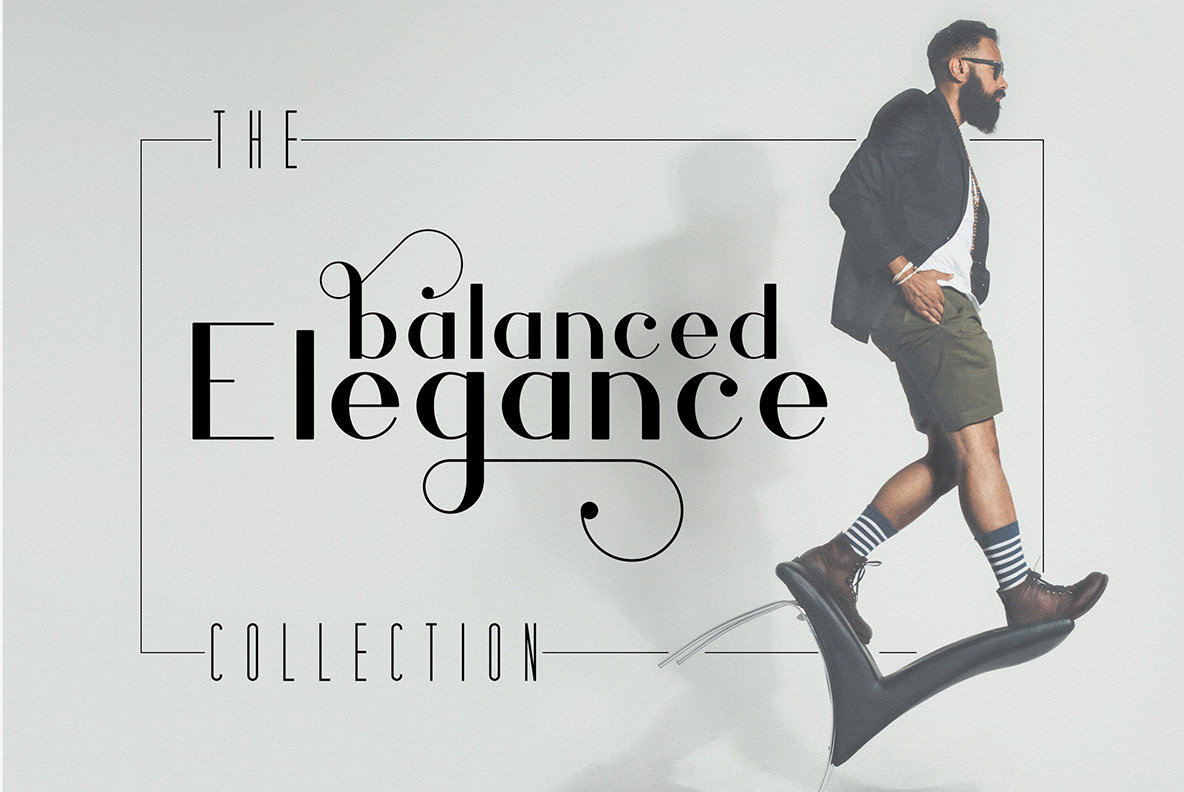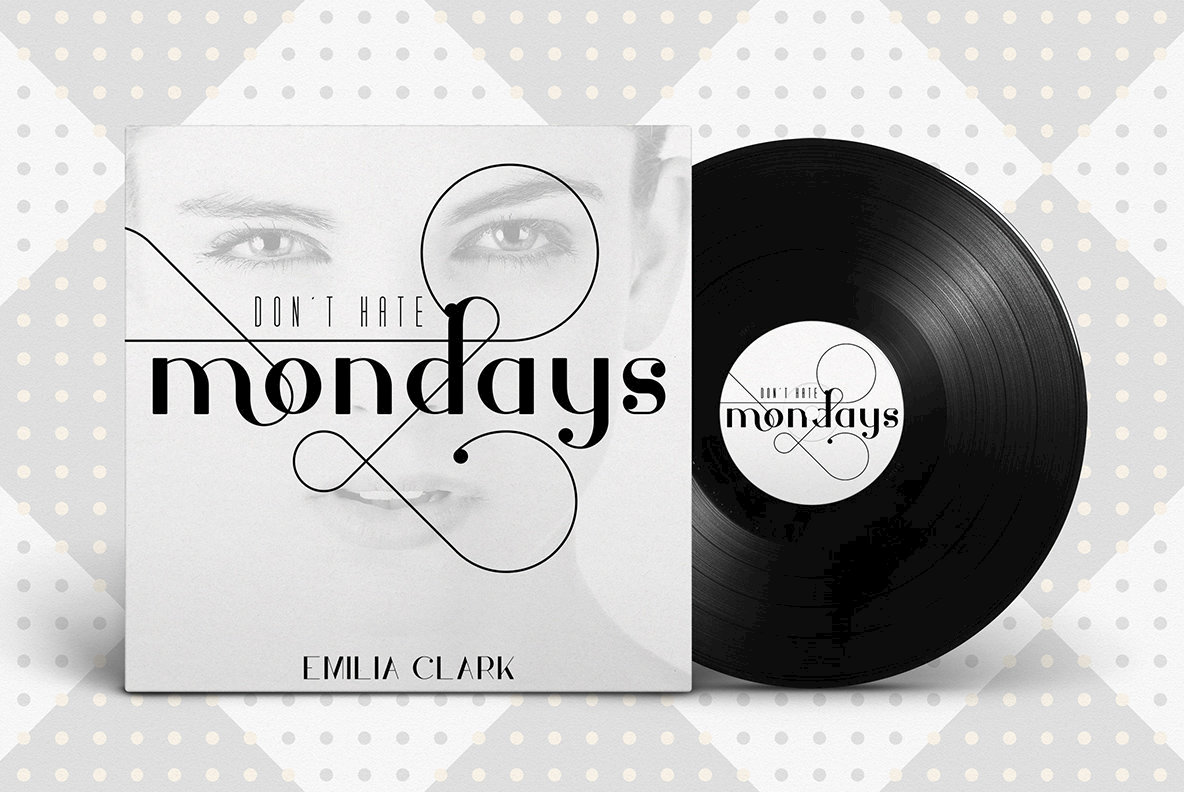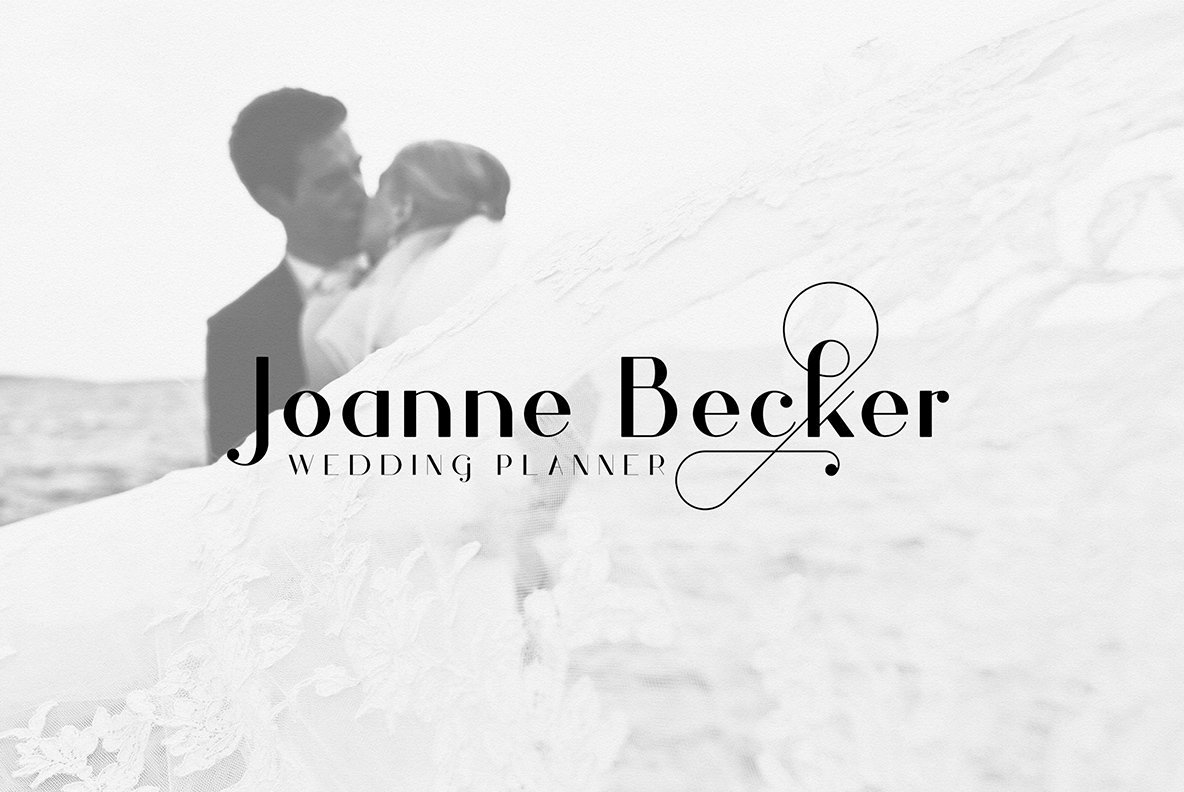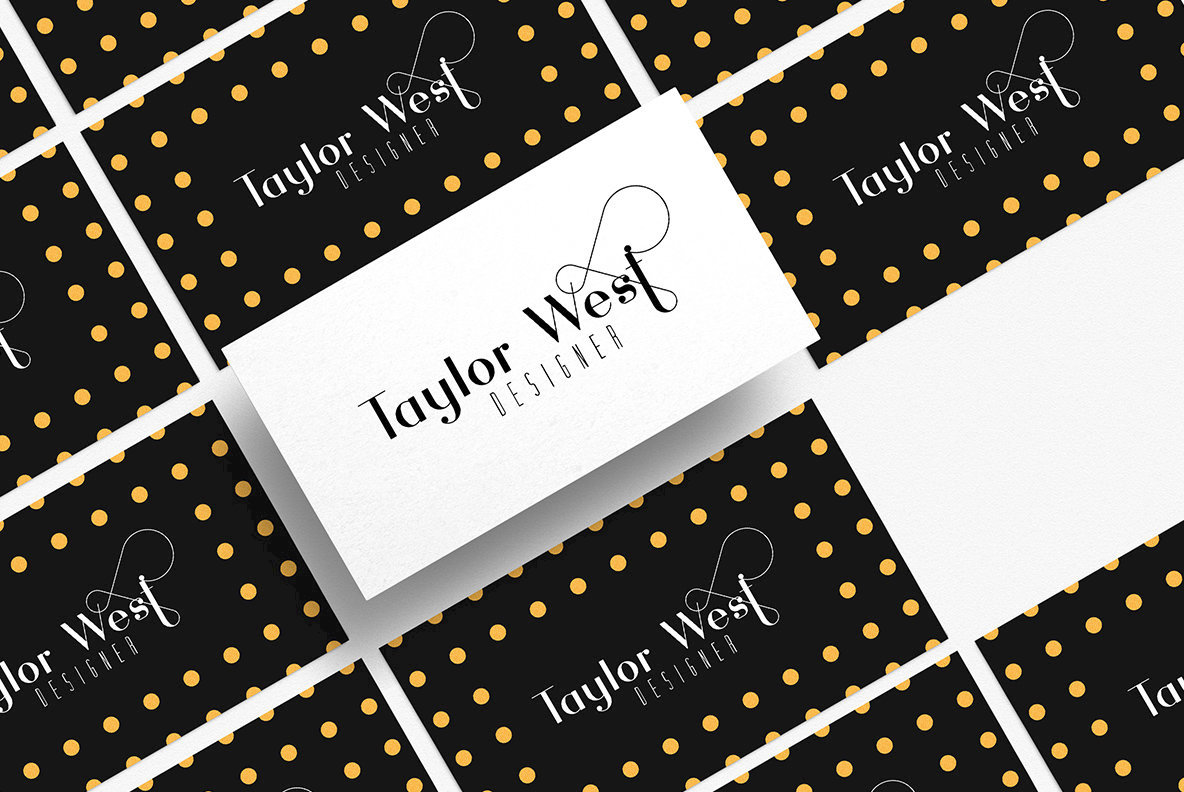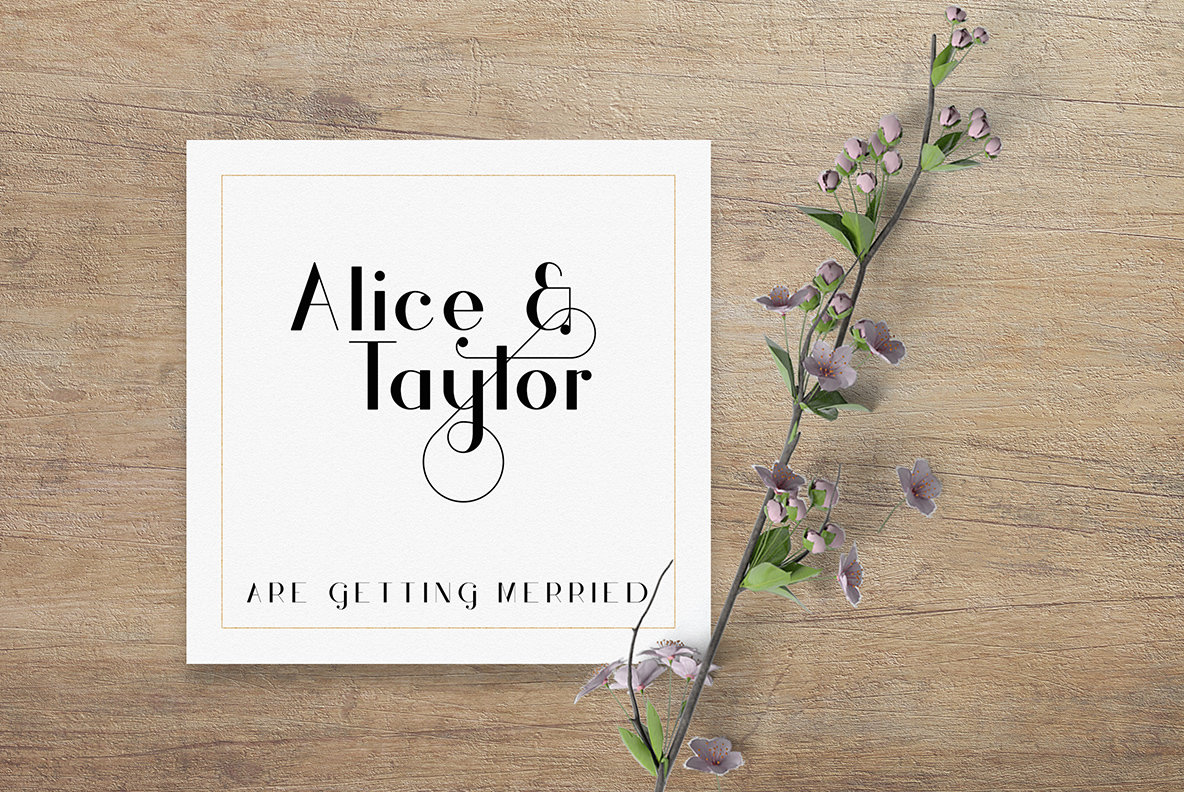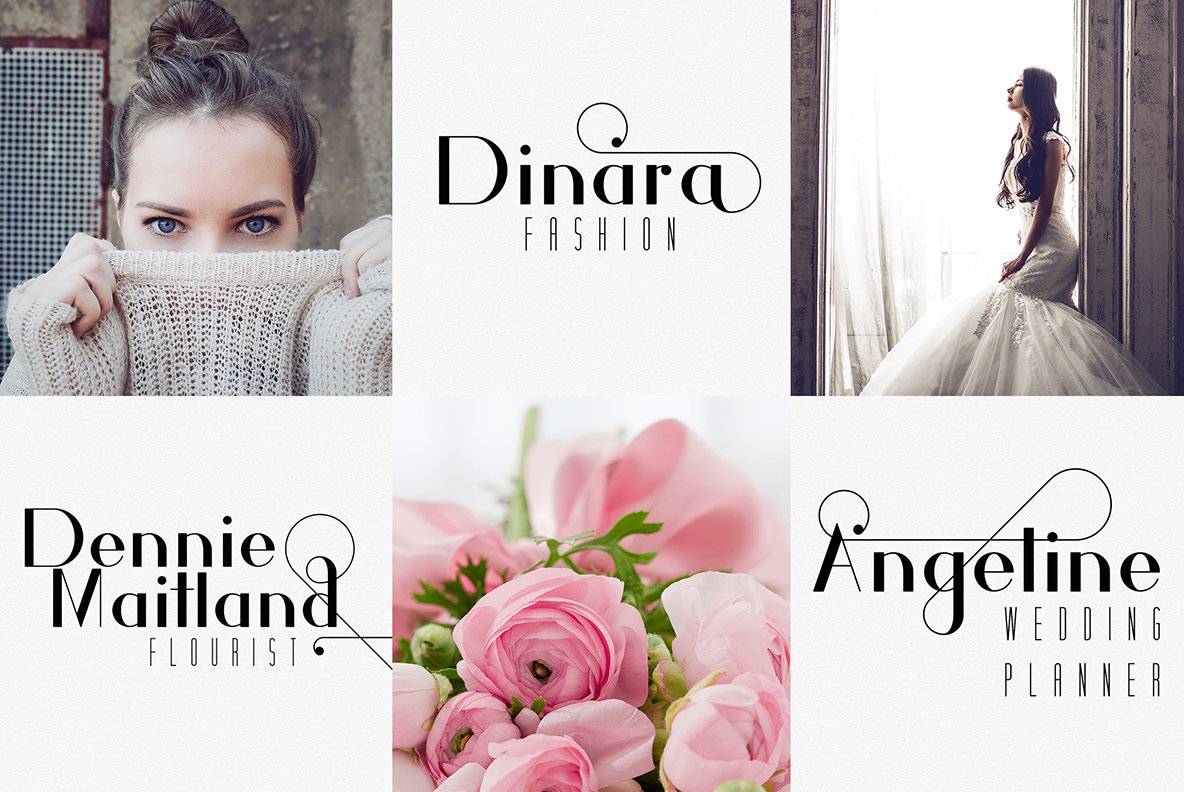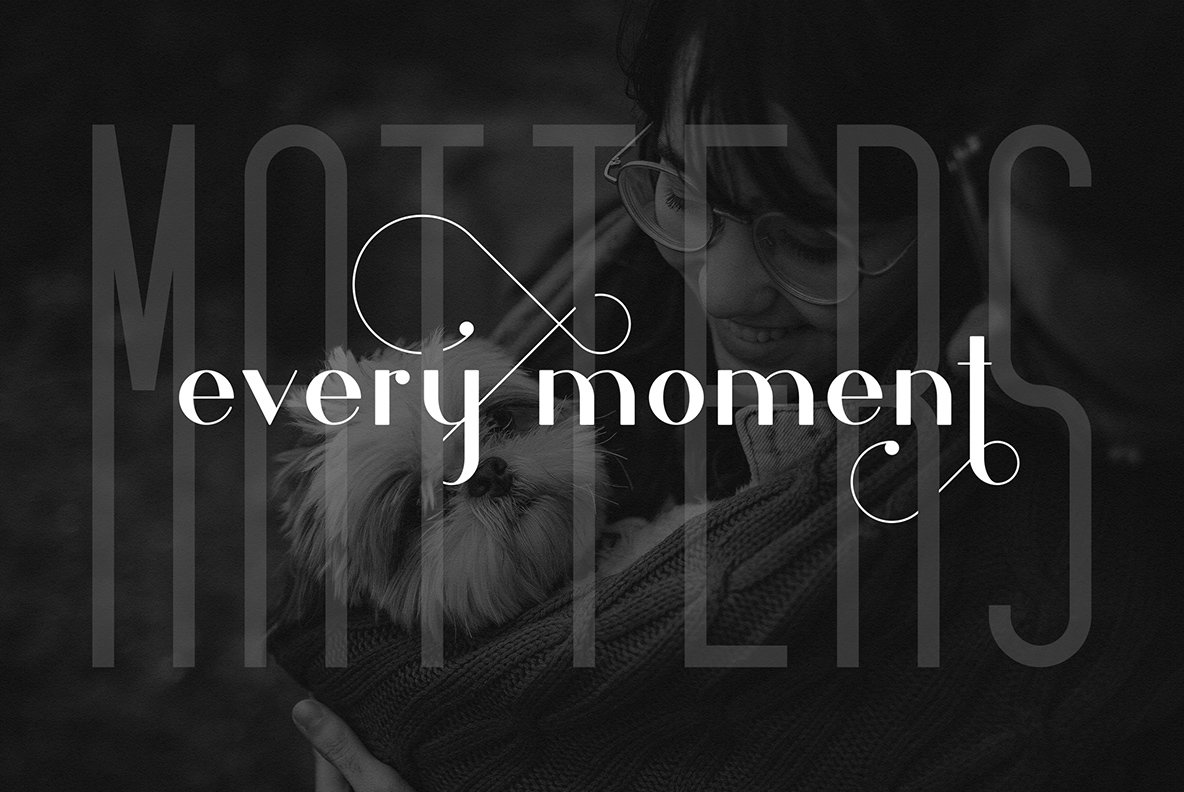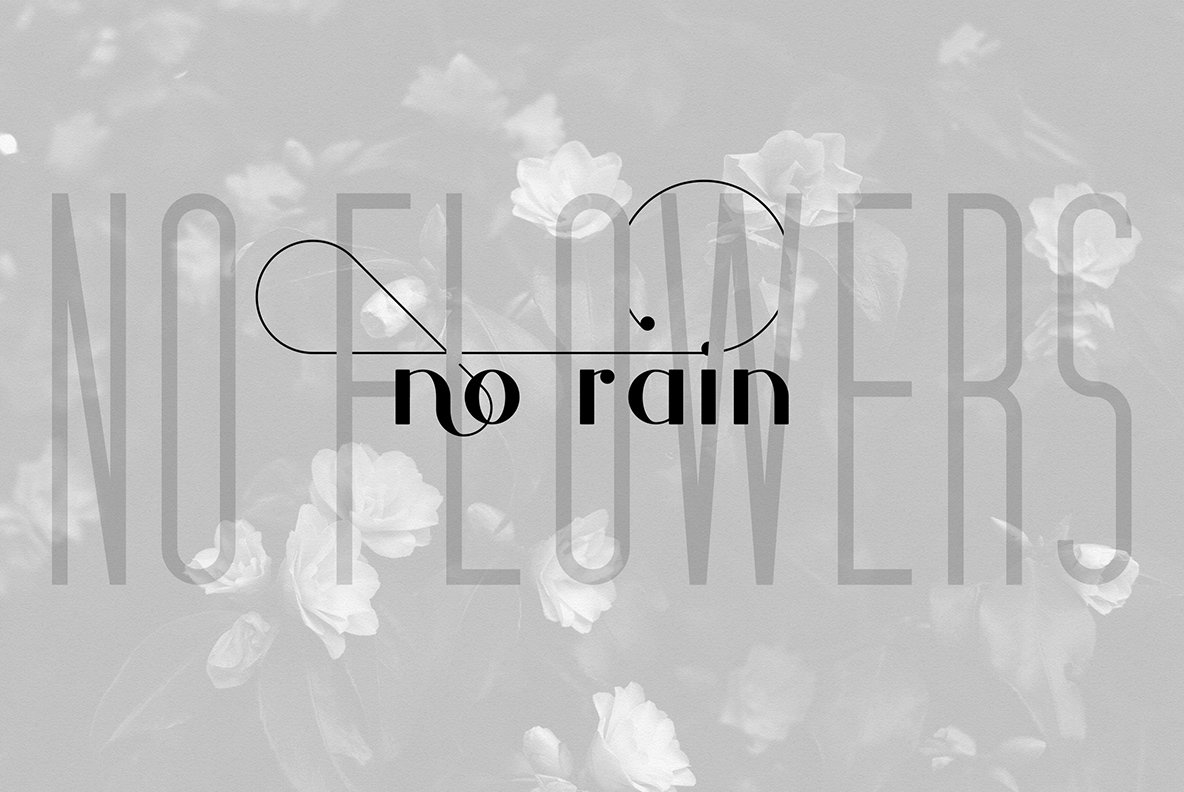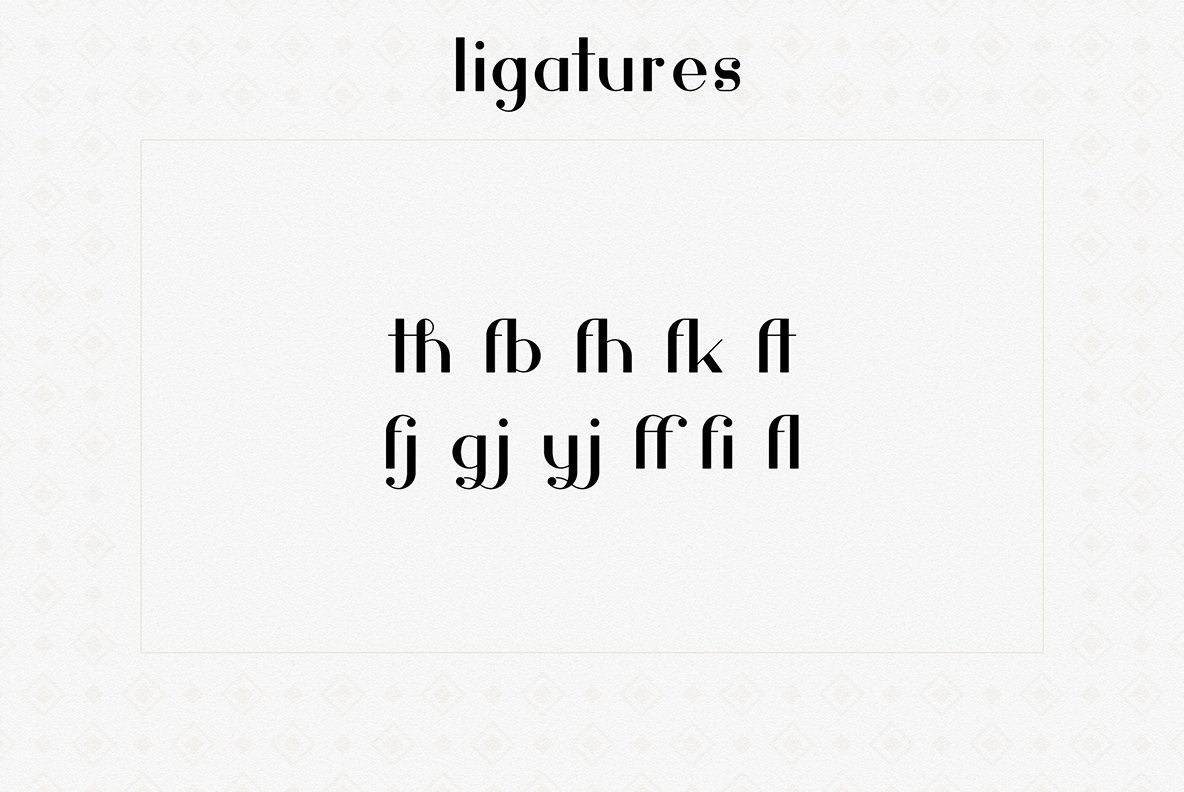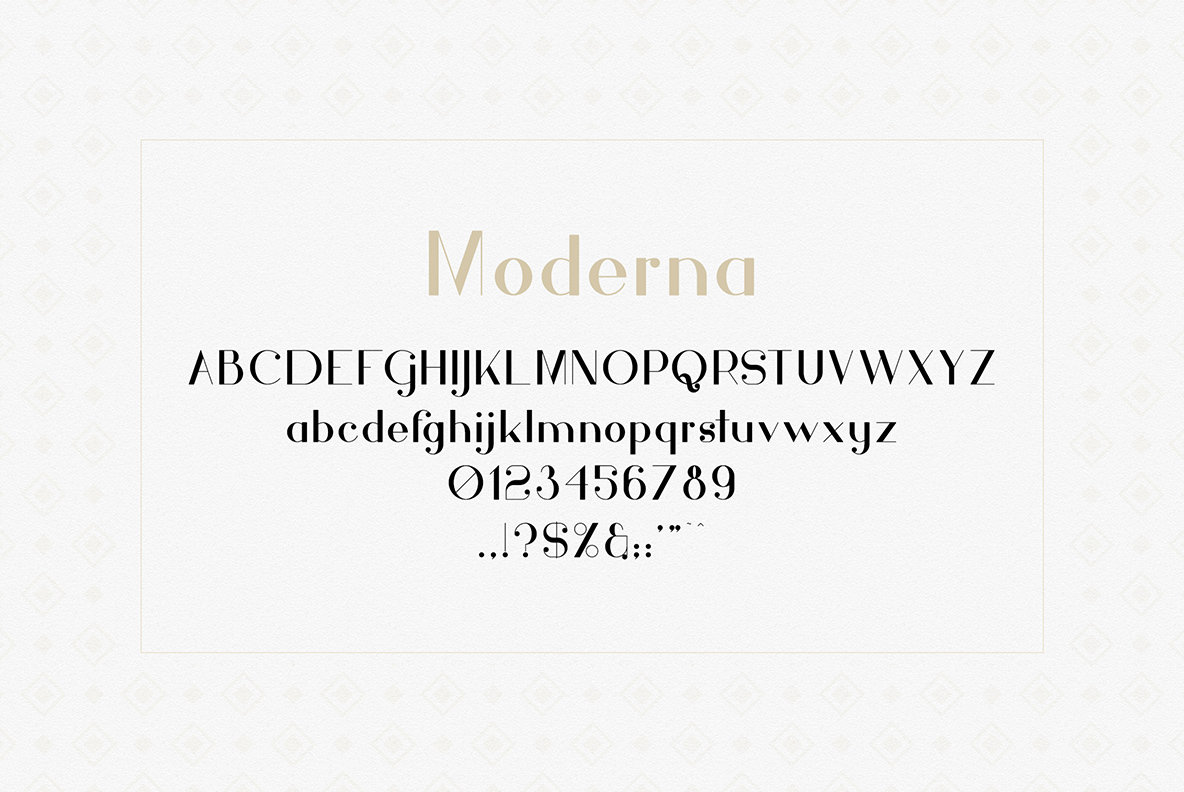
Hashtag Moderna Font Duo and Extras
Hashtag Regular
Hashtag Outline
Hashtag Rough
Moderna
The Hashtag Moderna Font Duo offers an exquisite blend of sophistication and versatility, catering to a range of design needs. With its elegant, clean lines and four distinctive font styles, this font duo brings a touch of refinement to both large and small formats. Ideal for branding, home-ware design, product packaging, or magazine headers, Hashtag Moderna seamlessly integrates as a chic text overlay on any backdrop. Its adaptability makes it a valuable asset for creative projects.Hashtag Moderna: Versatile Elegance in Typography
Additional Elements